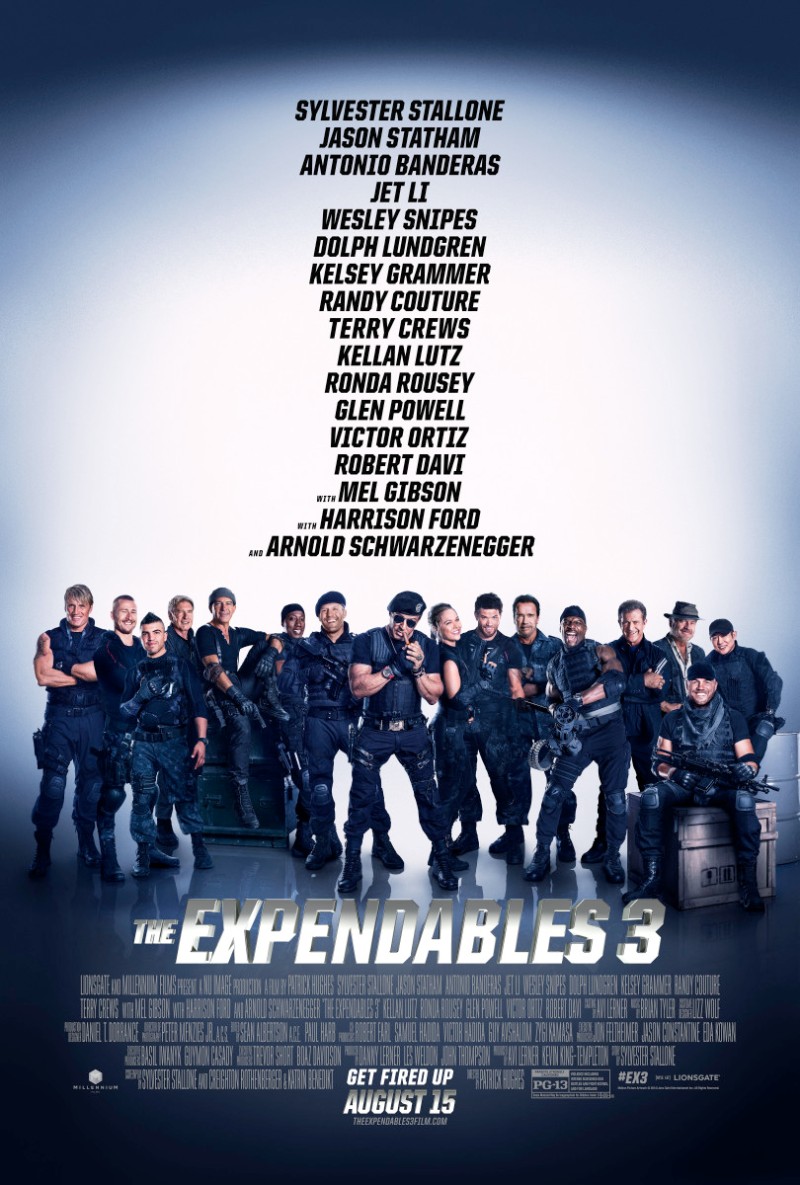
The Expendables 3 Font
ActionThe Expendables 3 is a 2014 American action film directed by Patrick Hughes. The Expendables 3 is the third movie in the series and the follow-up to The Expendables 2. (2012). The plot centers on the mercenary team known as The Expendables as they come into the battle with the co-founder and vicious arms dealer Conrad Stonebanks, who is out to eliminate the organization.
ITC Machine is the font that has been altered to provide glassy and 3D effects for the Expendables 3 title in the poster.